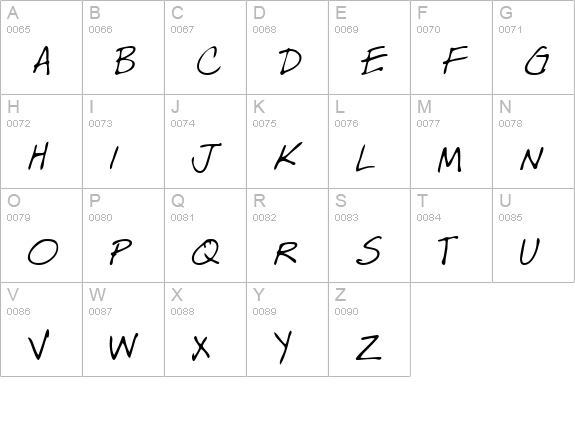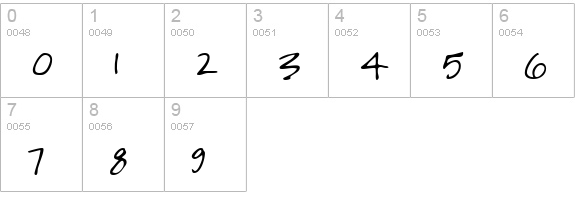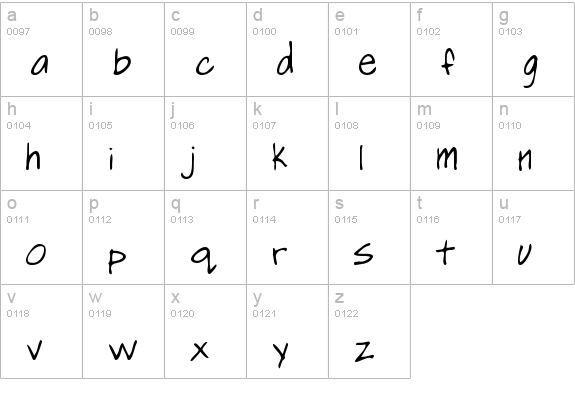
SashasHand Regular Font Details
SashasHand Regular is the standard, neutral variant in the SashasHand typeface family \xE2\x80\x94 well suited to general body text, paragraphs, and standard typographic work.
SashasHand Regular font is a charming and versatile typeface that captures the essence of handmade lettering with its playful and organic strokes. This font exudes a sense of warmth and friendliness, making it perfect for a wide range of design projects. With its unique and distinctive style, SashasHand Regular adds a touch of whimsy and creativity to any text or headline. Its slightly irregular letterforms give it a handcrafted feel, making it the ideal choice for projects that require a personalized and authentic touch. Whether you're designing a logo, creating eye-catching posters, or crafting beautiful invitations, SashasHand Regular font offers endless possibilities. Its versatility allows it to be used in a variety of settings, from casual and fun to elegant and sophisticated. The best part is that SashasHand Regular font is available for free download at FontsMarket.com. This means that you can easily access this delightful font and use it in your design projects without any hassle. Simply visit FontsMarket.com and add a touch of creativity and character to your designs with SashasHand Regular font.